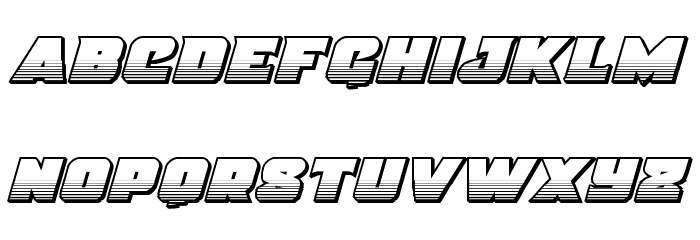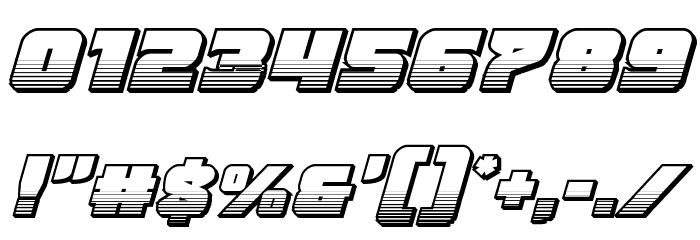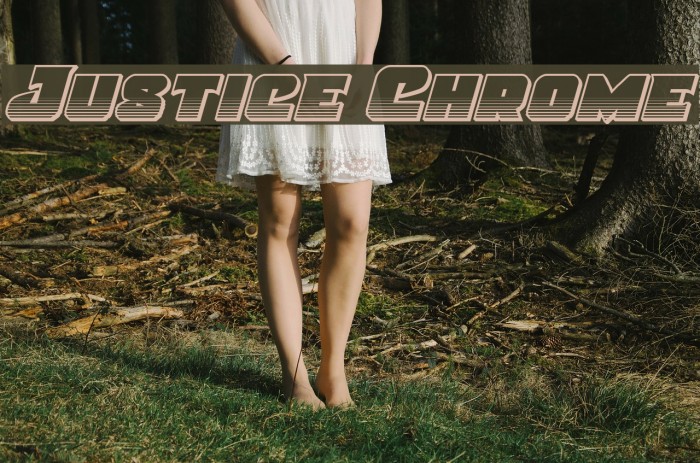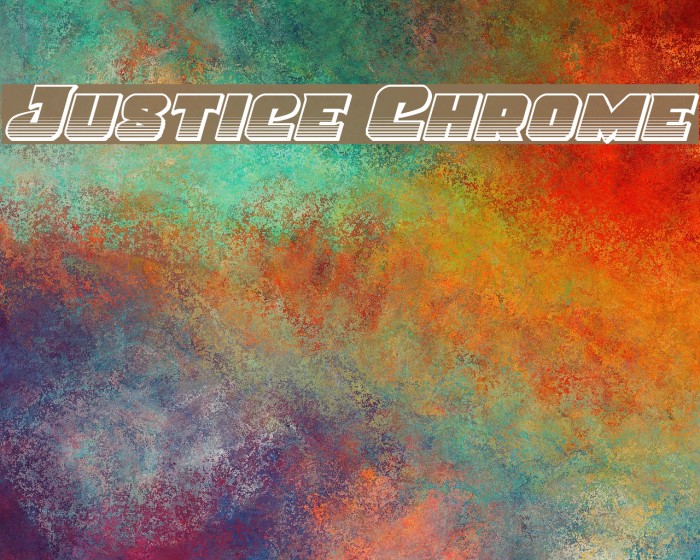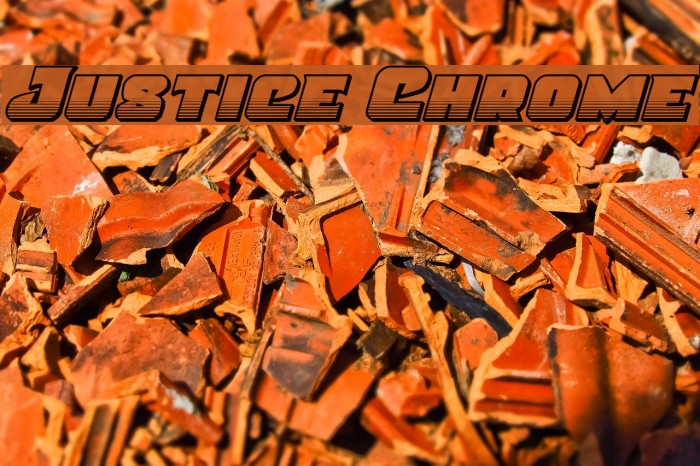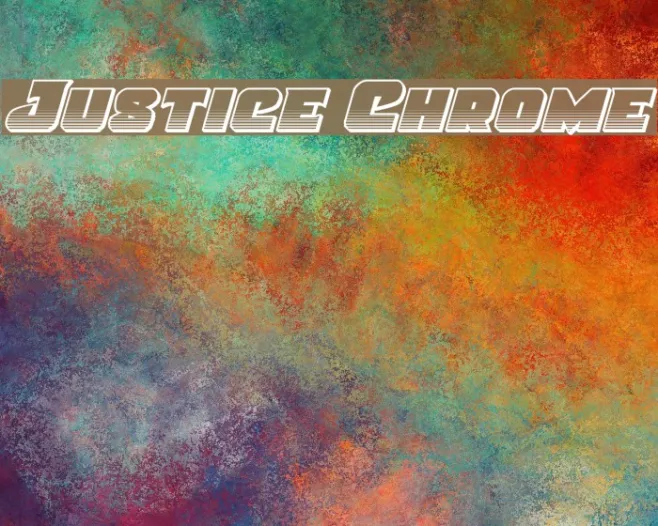
Justice Chrome Font
This font features a bold, three-dimensional design with a distinct chrome-like appearance. The letters are uppercase and exhibit a layered effect with horizontal lines that create a sense of depth and movement. The style is reminiscent of retro-futuristic aesthetics, often seen in vintage car emblems or arcade game titles. The characters are wide and have a strong presence, making them suitable for attention-grabbing headlines. The font includes a full set of uppercase letters, numbers, and a variety of special characters, all maintaining the same bold, layered style.
A bold, three-dimensional font with a retro-futuristic chrome appearance.
- Proposed Projects: Ideal for projects that require a vintage or retro-futuristic look, such as posters, logos, video game titles, or automotive branding.
- Width: Expanded
- Overall Style: Retro-Futuristic